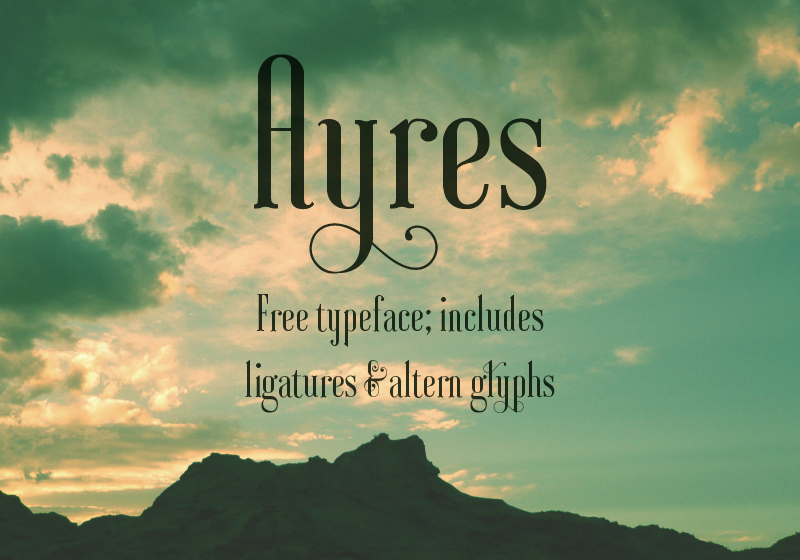
Ayres is a free high-contrast serif font with dramatically tall, narrow letters and a distinctly theatrical silhouette. Their hairline strokes and swelling curves create an elegant, eccentric texture.
Fashion photography gains a strong editorial frame from these elongated forms, making the font well suited to printed magazine covers and luxury fragrance packaging. The same stately proportions can lend period drama to theater posters and refined restaurant branding, especially when the lettering becomes part of a decorative border or an architectural facade image.
Ayres is a condensed font.